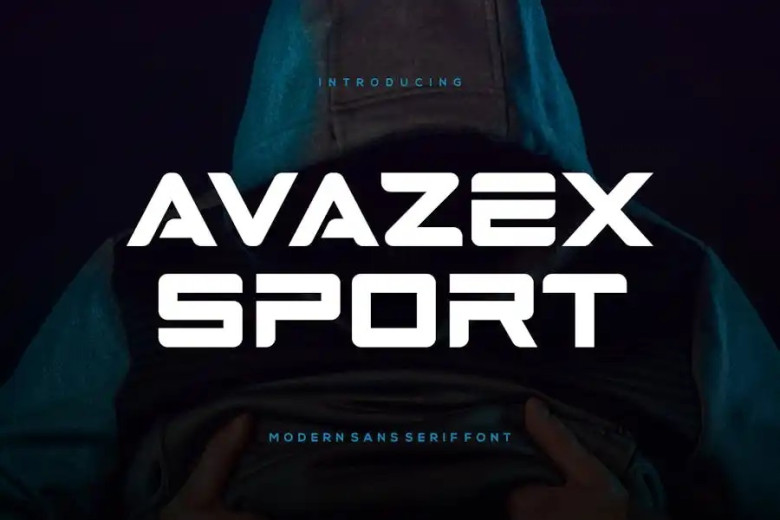
Avazex Sport Font
Avazex Sport – Modern Font is a simple and authentic display font. Perfectly fit for branding, logo, wedding things, greeting cards, fashion, look book, marketing promotion, anytime you want to look fancy elegant but still casual.
Avazex Sport Display Font